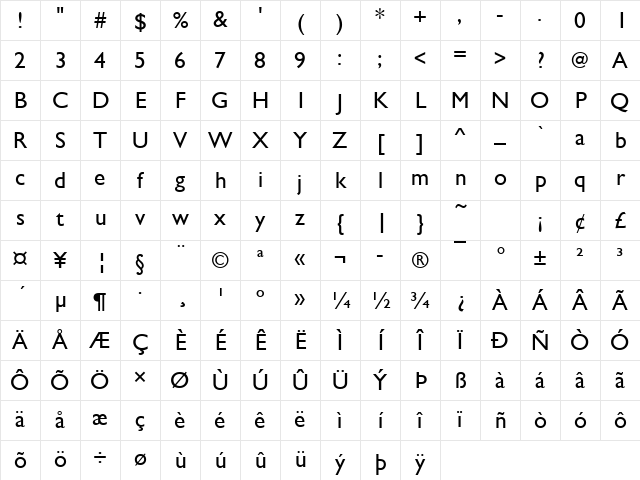
URWGalaxieNo2T Regular
Design Context for URWGalaxieNo2T
URWGalaxieNo2T is a composed and adaptable typeface that performs quietly and consistently across a wide range of design contexts.
Pro Tip: Use URWGalaxieNo2T in both headline and body roles to test its range before committing to a single application.